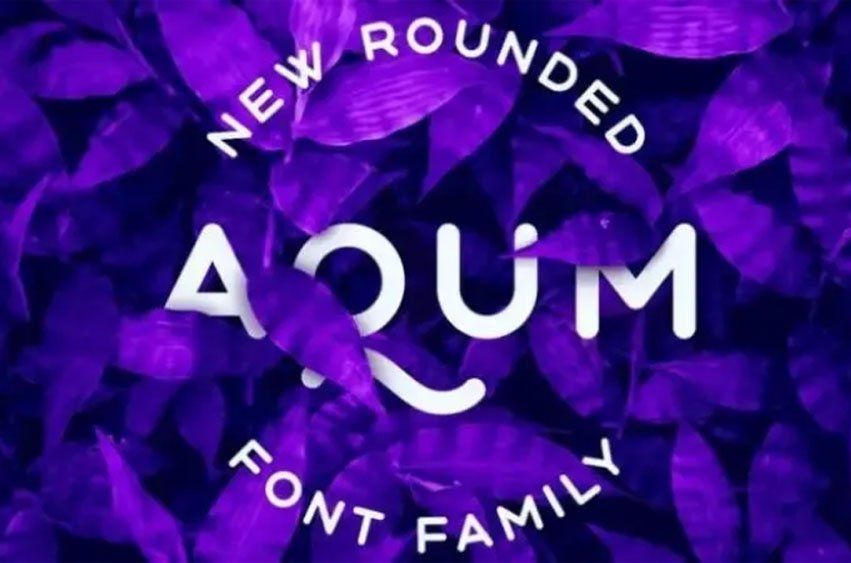
Aqum Two Font
Aqum Two Font Sans Serif Font is a stylish modern sans serif font looks classy, elegant and sophisticated. It’s a new rounded geometric sans-serif font family manufactured by Slava Antipov.
This font is a very versatile sans-serif typeface with both uppercase & lowercase letters and features multilingual support. Aqum 2 is great for headlines, documents, magazines, titles, apparel, posters and more.